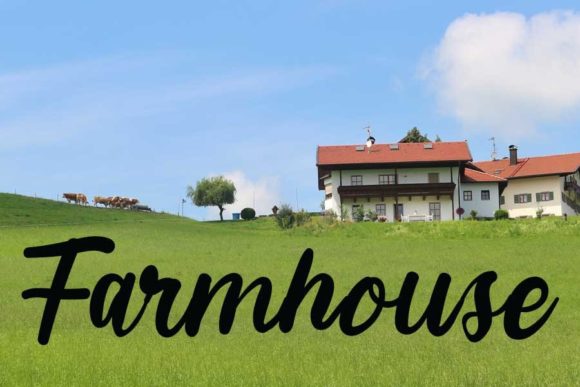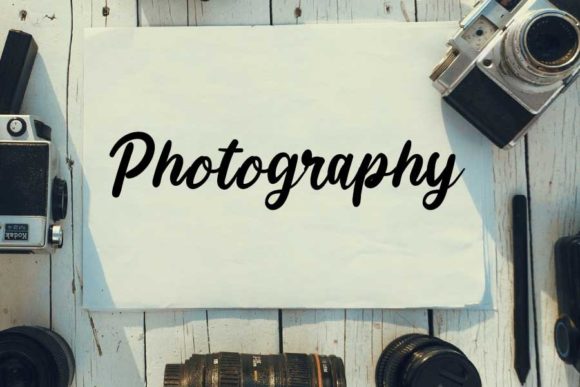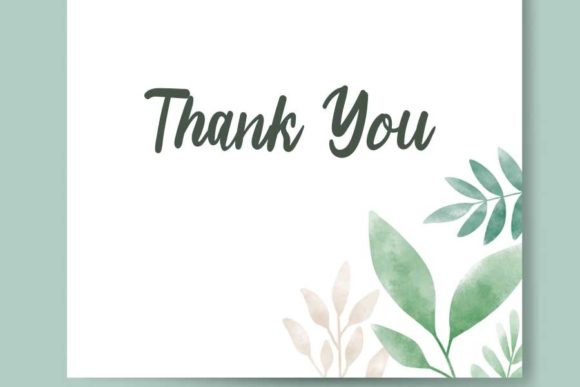
The Sweet Charm of Flower Mandala Font: A Designer’s Delight
I’ll never forget the moment I stumbled upon the perfect font for a project that had been lingering in my design queue for weeks. I was working on a whimsical garden-themed invitation, and something was just not clicking. The design was beautiful, but the font I had chosen was either too formal or too bland. That’s when I discovered the Flower Mandala font, and it was love at first sight! 💕
The natural, handwritten style of Flower Mandala instantly elevated my design, adding a touch of warmth and playfulness that perfectly captured the essence of the project. If you’re a designer, crafter, or creative hobbyist looking for a font that can bring a sense of relaxation and sweetness to your work, then you’re in the right place.
An Honest Review: What I Love and What to Keep in Mind
What I Love About Flower Mandala Font ✨
- ✅ Unique and natural handwritten style that stands out from more traditional fonts
- ✅ Highly versatile and fitting for a wide range of design projects, from invitations to branding
- ✅ Easy to read and pairs well with both serif and sans-serif fonts
- ✅ The font’s relaxed vibe makes it perfect for designs that require a friendly, approachable feel
- ⚠️ As with many handwritten fonts, some letters might be a bit inconsistent in size or style, which could affect uniformity in certain designs
- ⚠️ It might not be the best choice for very formal or corporate projects, as its playful nature might not align with the desired brand image
The Story Behind Flower Mandala: A Designer’s Inspiration
While the true origins of Flower Mandala might be shrouded in mystery, it’s easy to imagine a designer inspired by the intricate patterns of nature and the simplicity of handwritten notes. Perhaps they were on a serene walk through a blooming garden, noticing the way light danced through petals and the organic shapes of flowers. This font could be the result of a passion to capture that natural beauty and tranquility in a digital form.
Q: Is Flower Mandala suitable for body text in long documents?
A: While Flower Mandala is beautiful and easy to read, its unique style might make it more challenging to read in long passages. It’s best used for headings, quotes, or short paragraphs where its charm can shine.